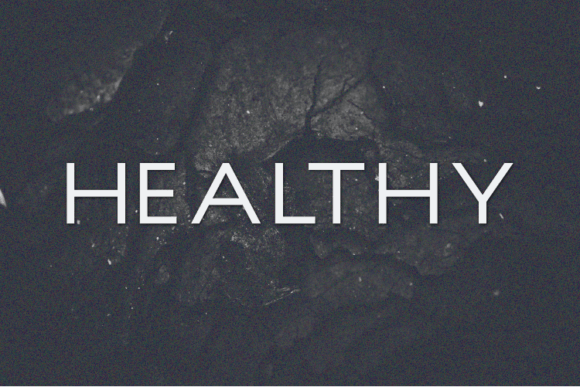
Discover the Perfect Balance: Healthy Font
Remember the thrill of creating something from scratch? For designers, it’s that moment when a project finally starts to take shape, and the font you choose becomes the backbone of your design. It’s the difference between a good design and a great one. I still recall the countless hours spent searching for the perfect font to complement my project’s aesthetic.
That’s where Healthy Font comes in – a modern, classy sans serif typeface designed to elevate your designs to the next level. Whether you’re crafting a logo, wedding invitation, or magazine article, Healthy Font is the perfect companion. Its versatility and timeless appeal make it an invaluable asset for designers, allowing them to create visually stunning pieces that captivate their audience.
With Healthy Font, you’ll discover a world of creative possibilities. Its clean lines, elegant curves, and refined details make it an excellent choice for any project, big or small. So, what are you waiting for? Explore the Healthy Font and unlock your full design potential.
Key Features of Healthy Font
- Font Family: A clean and modern sans-serif font designed for readability, available in various weights and styles.
- Character Set: Supports a wide range of languages, including Latin, Cyrillic, and Greek scripts, making it a versatile font for global use.
- Unique Characteristics: Features a unique blend of geometric and organic elements, creating a friendly and approachable feel, while maintaining high legibility.
Healthy Font Review
Overall, I’d say Healthy Font is a decent addition to the world of typography. It’s got some nice features that make it stand out, but it’s not without its flaws.
- Legibility: Healthy Font is incredibly easy to read, even at small font sizes. The letterforms are clean and well-proportioned.
- Variety: The font family includes multiple weights and styles, making it suitable for a wide range of applications.
- Sustainability: As the name suggests, Healthy Font is designed with sustainability in mind. The font is optimized for digital use, reducing the environmental impact of traditional printing methods.
- Consistency: While the font family is extensive, the consistency between weights and styles can be a bit off. Some characters may look slightly different depending on the style.
- Expressiveness: Healthy Font is a clean and simple font, but it may not be the best choice for projects that require a lot of personality or flair.
Overall, I’d give Healthy Font 3.5 out of 5 stars. It’s a solid choice for projects that require a clean, legible font, but it may not be the best fit for more expressive or experimental designs.
Healthy Font: A Practical Application Guide
Healthy Font can be used in a variety of contexts, including:
- Logo design
- Branding materials
- Marketing materials
- Health and wellness publications